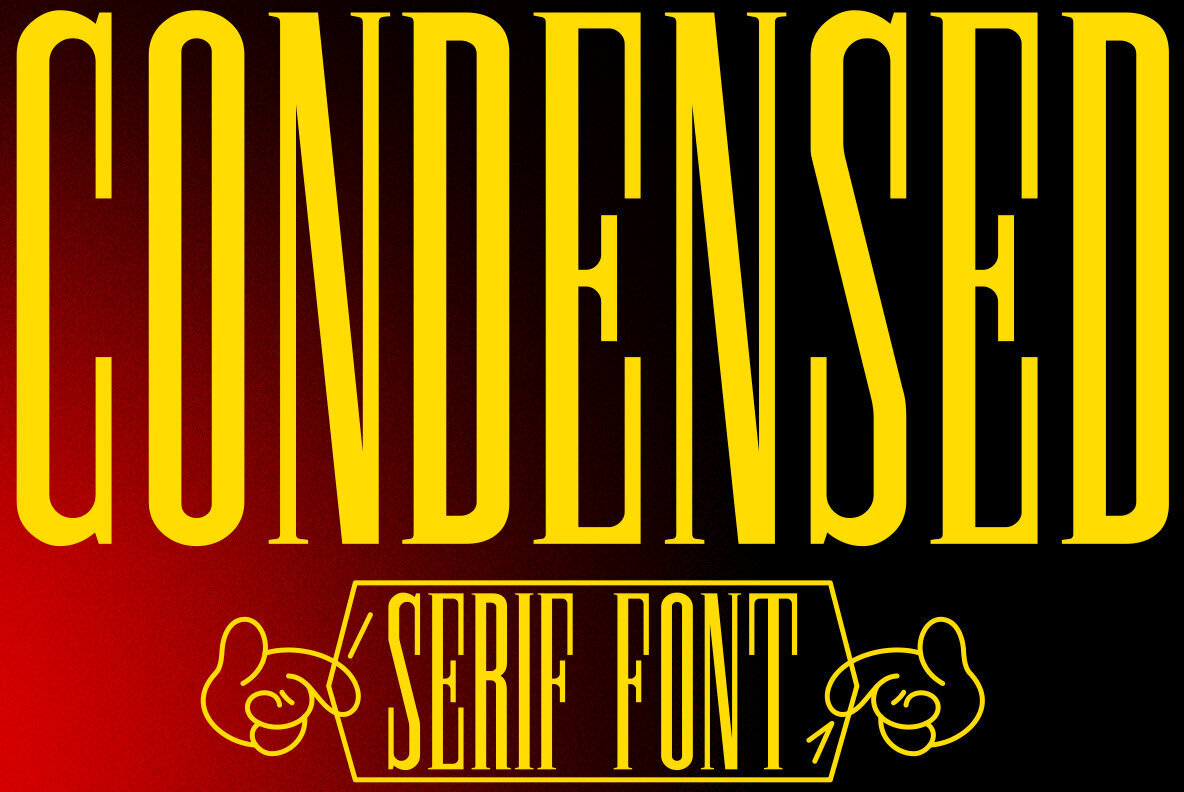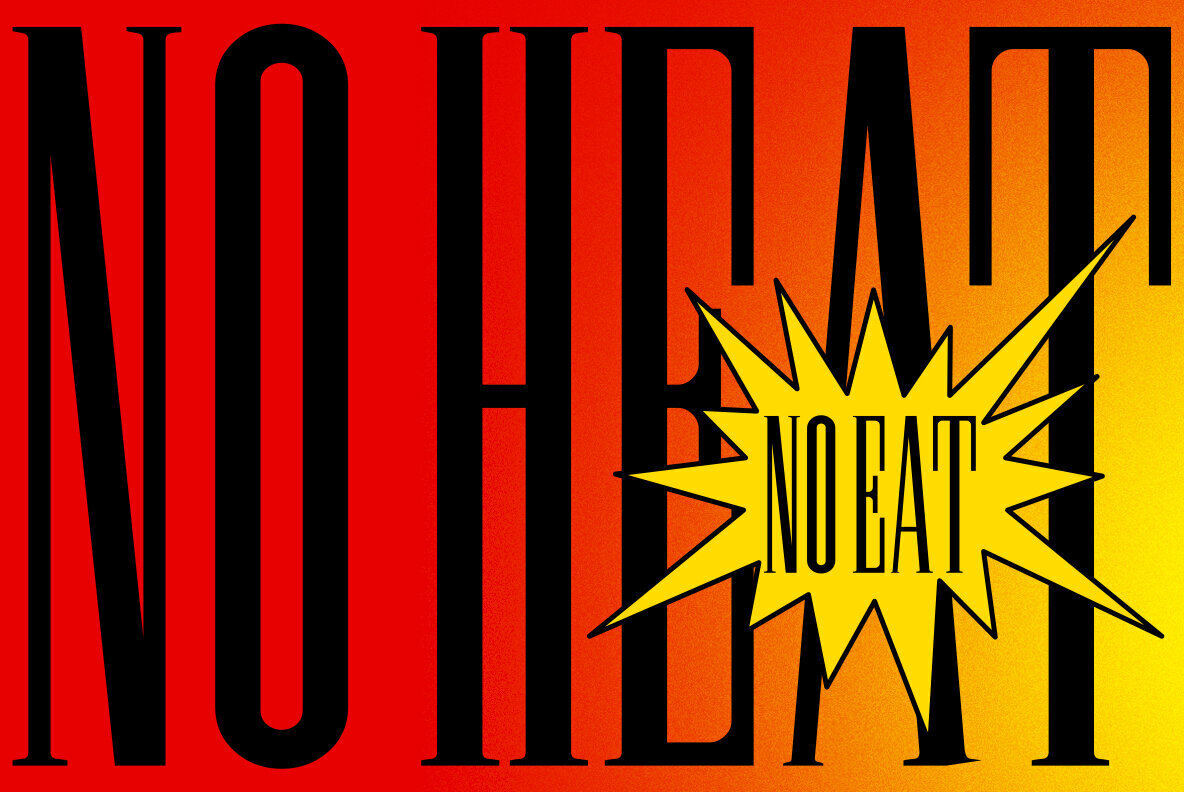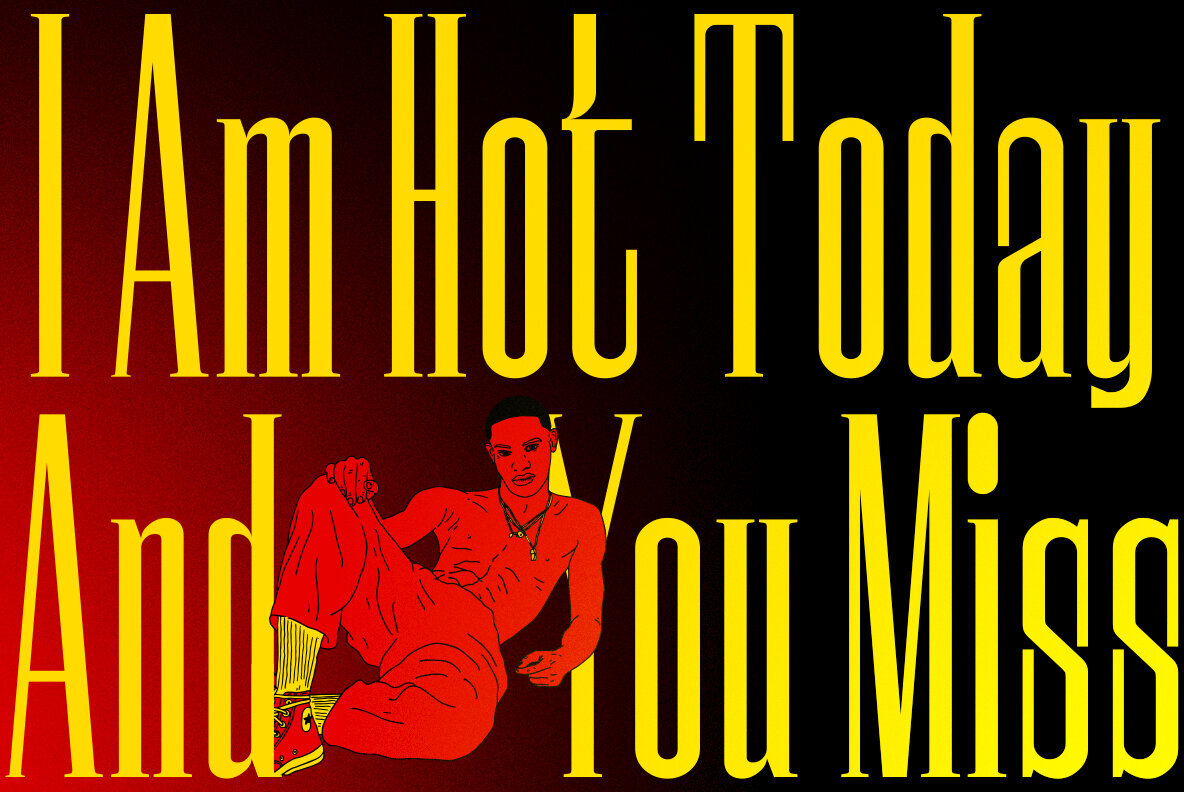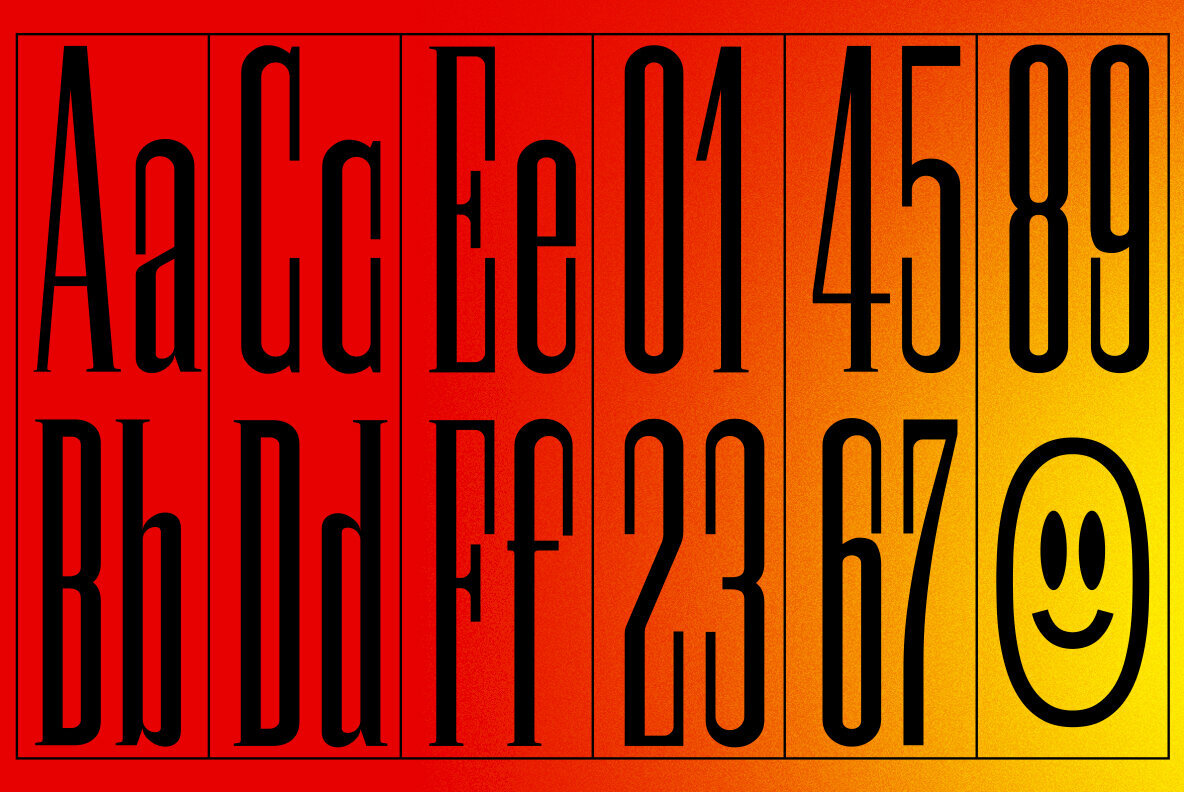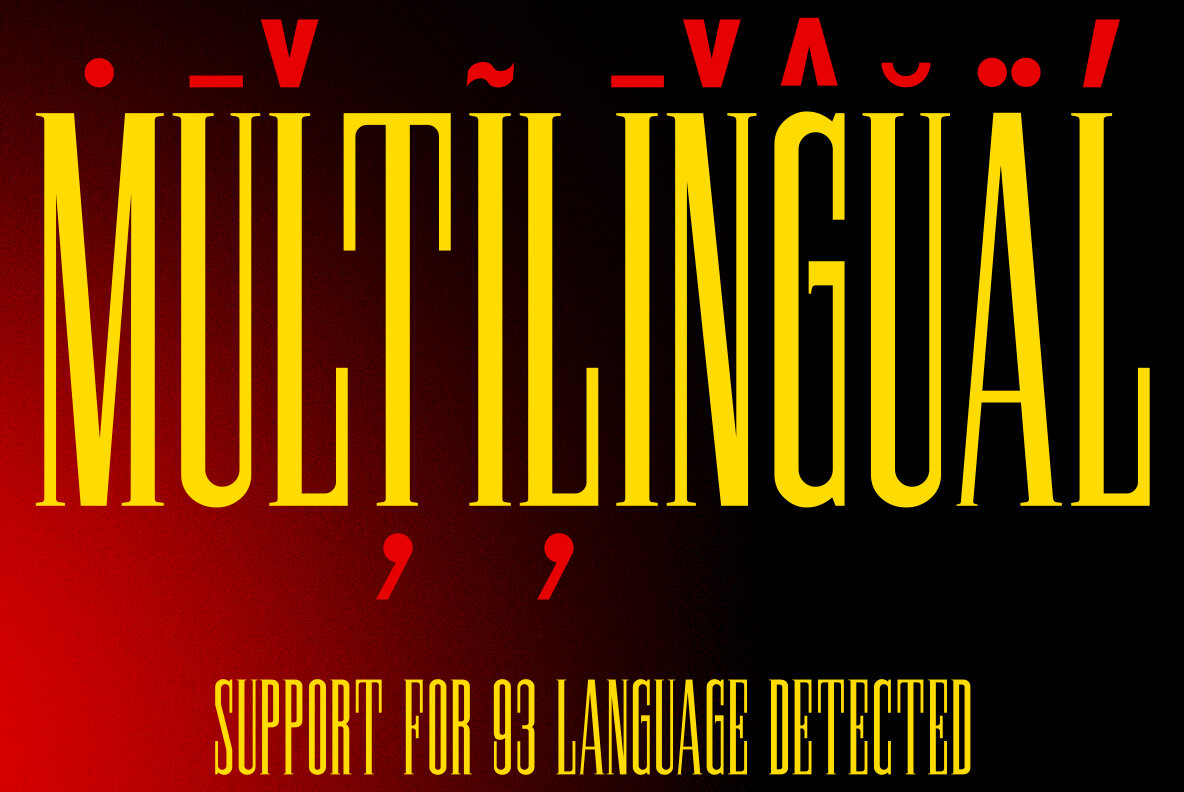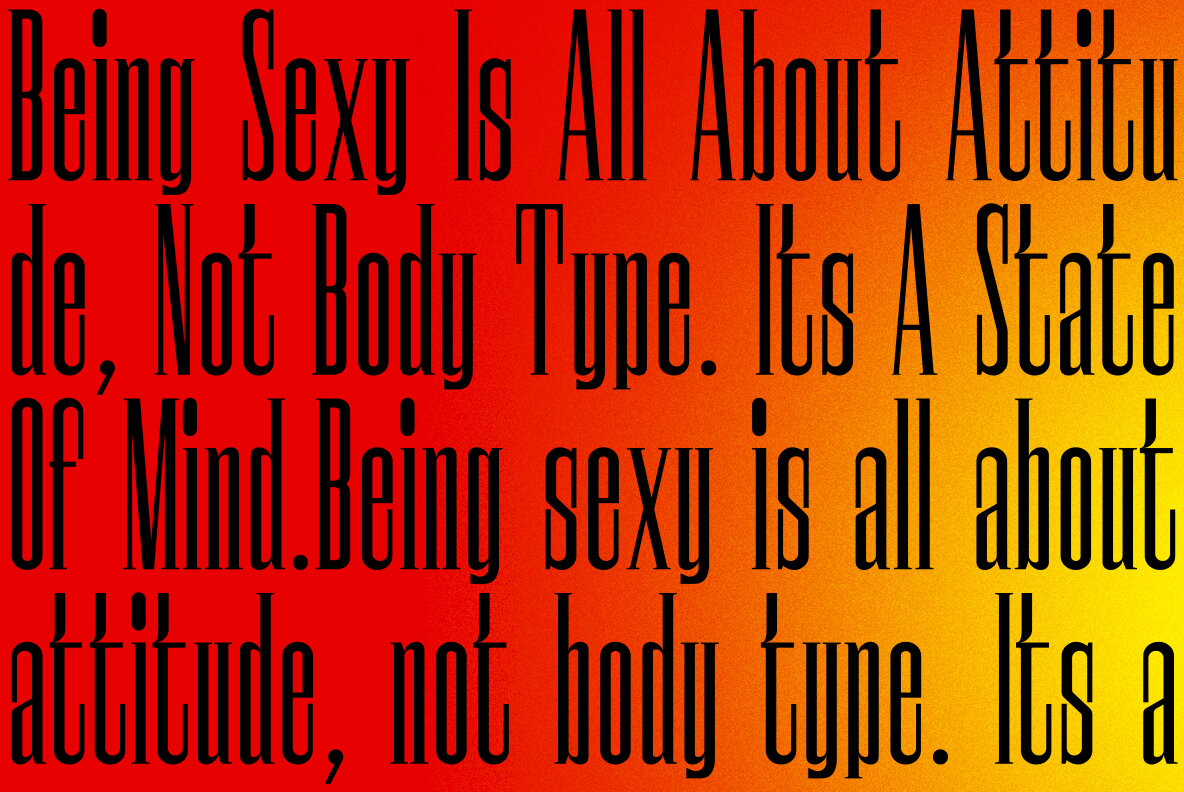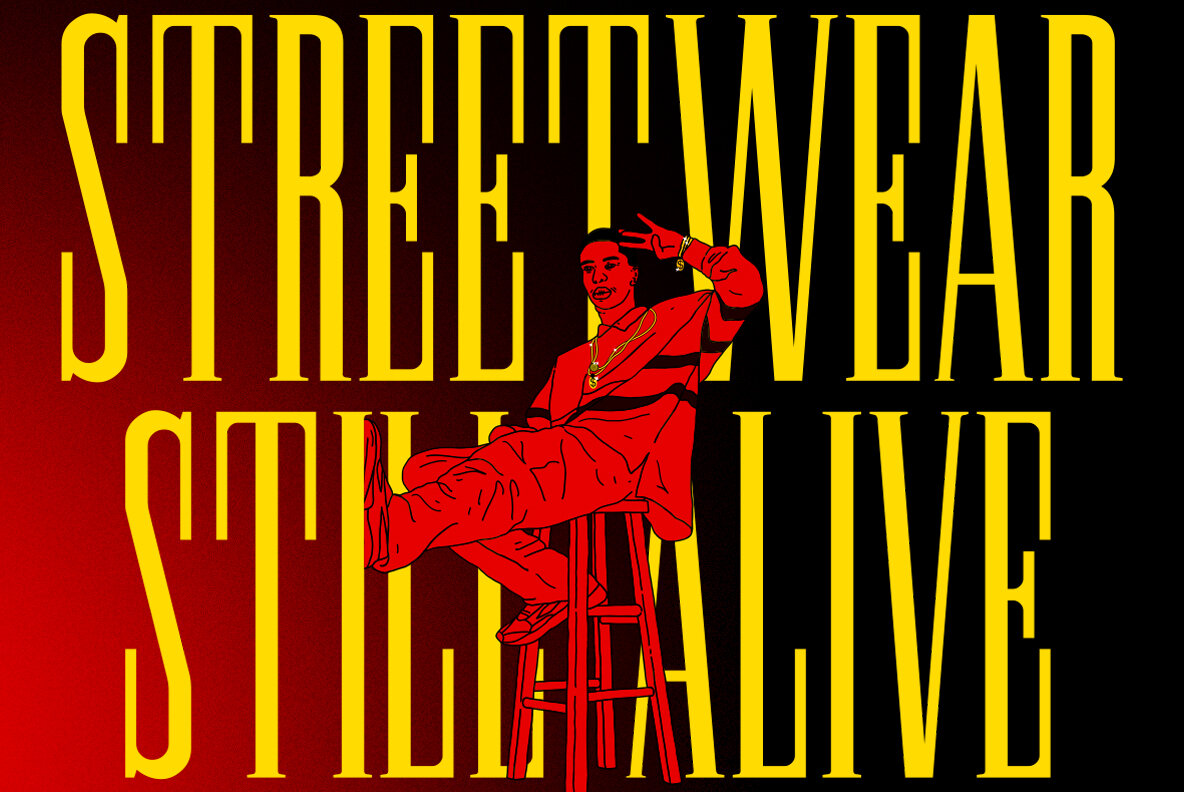
Breziun Font
Breziun
Breziun is a condensed serif font that has a different character from the existing serif fonts, Breziun has a strong but soft character, with a warm and wild theme. Its weight is superior in posters, social media, headlines, magazine titles, clothing, large print formats - and wherever you want to see it. Inspired by the design styles that are currently popular, let's make your imagination come true with breziun!